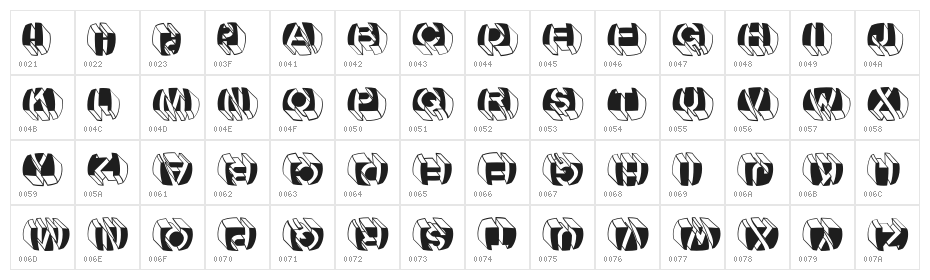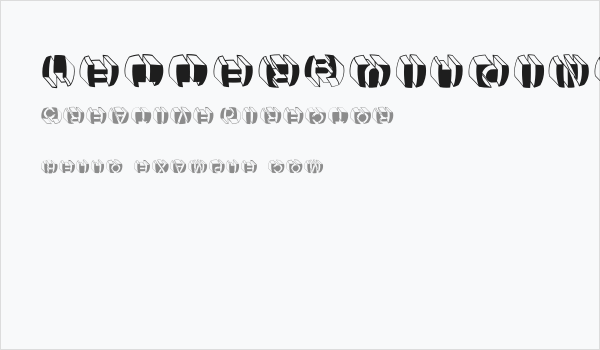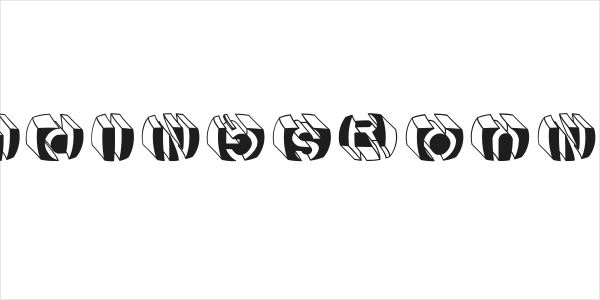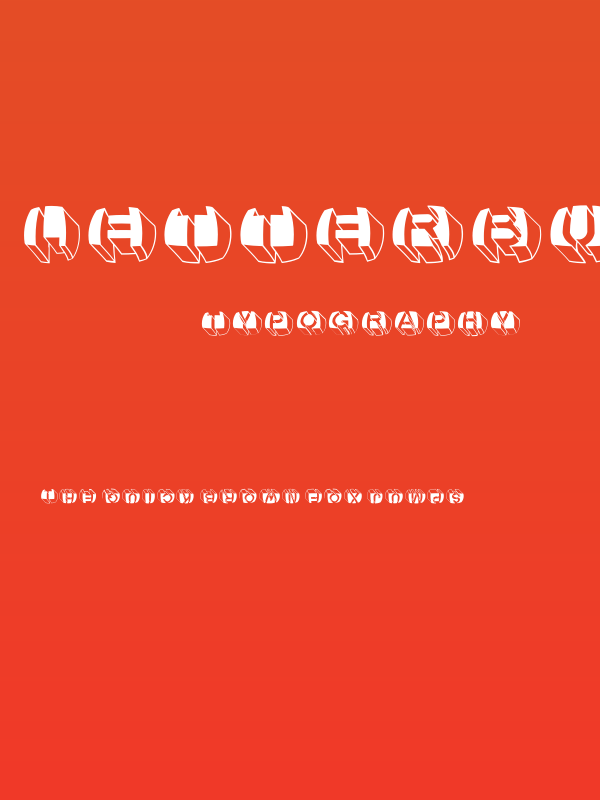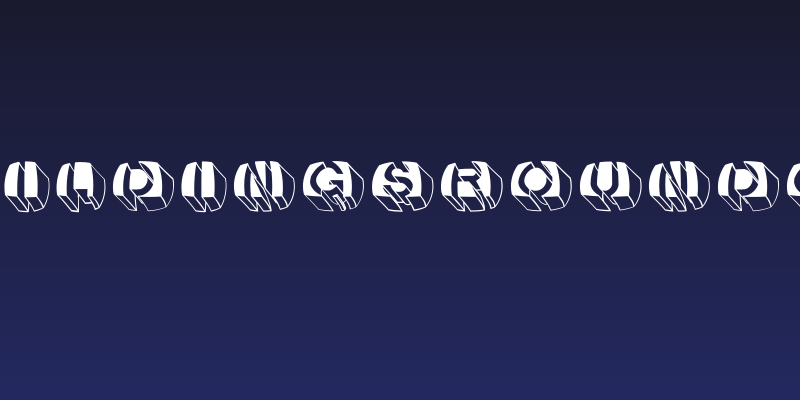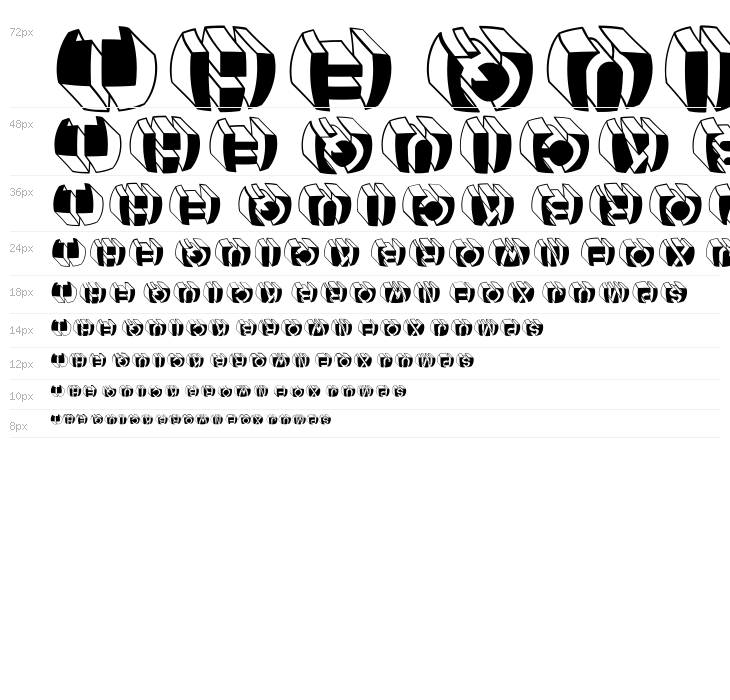
LetterBuildingsRoundContrast Font
LetterBuildingsRoundContrast Description
This font features a unique and bold design that combines architectural elements with rounded shapes, creating a striking visual impact. Each character is enclosed in a circular form, with intricate line work that resembles building structures. The contrast between the thick and thin strokes adds depth and dimension, making it stand out. The font's geometric style is both modern and artistic, suitable for creative projects that require a distinctive and eye-catching typeface.
Proposed ProjectsIdeal for architectural branding, modern art posters, and innovative logo designs.